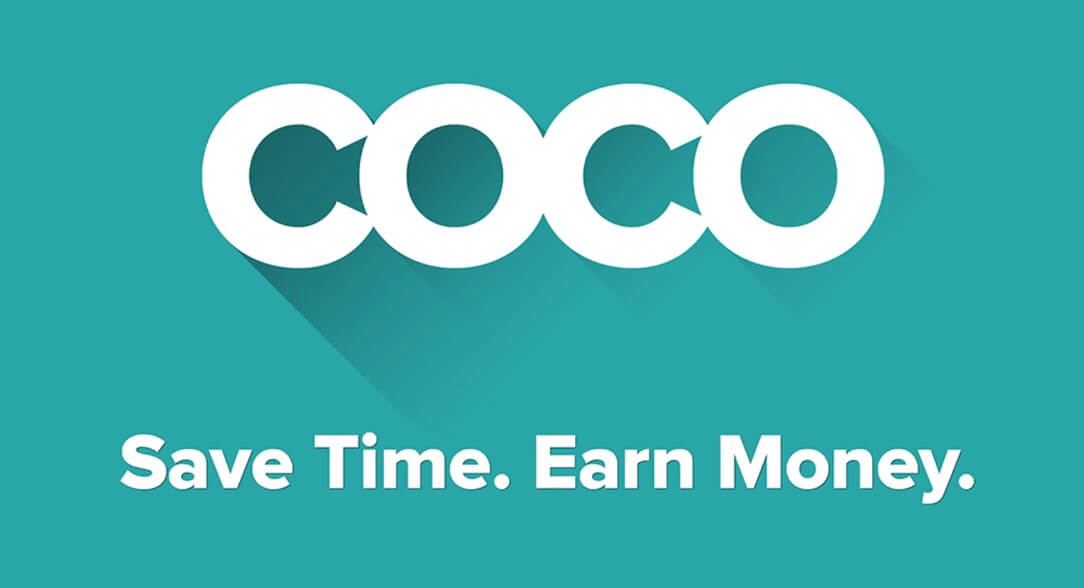
Coco Font
Coco font is a brand new typeface with a futuristic design. This font is superb for crafting social media posts, t-shirts, internet site headers, and more.
Style of Coco Font